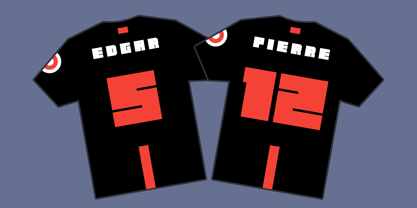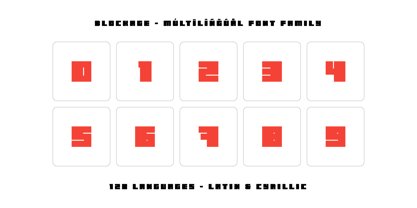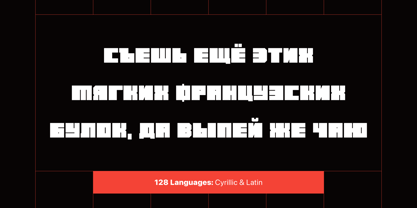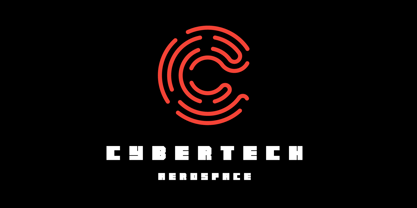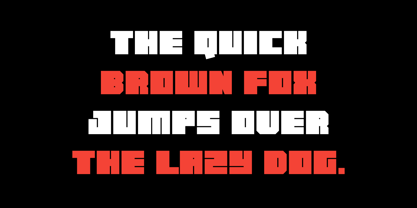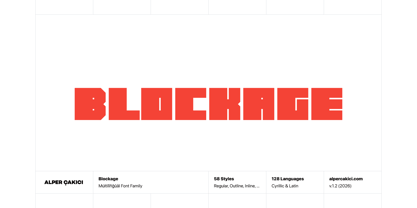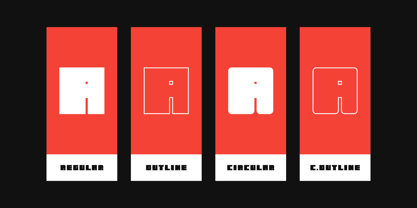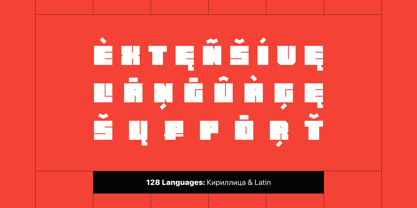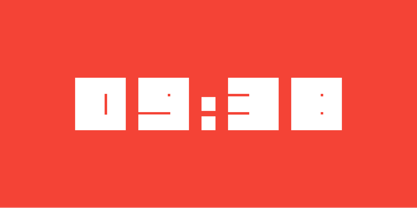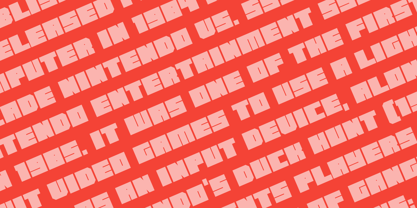
Blockage
by AlperCakici
The Blockage Font Family was designed by Alper Çakıcı and published by AlperCakici. Blockage contains 1 styles.
Blockage - A Display Font : Blockage is a carefully crafted display font. It has Extended Latin and Cyrillic characters. It created for poster, web, brand and social media designs.
Designers: Alper Çakıcı
Publisher: AlperCakici
Foundry: AlperCakici